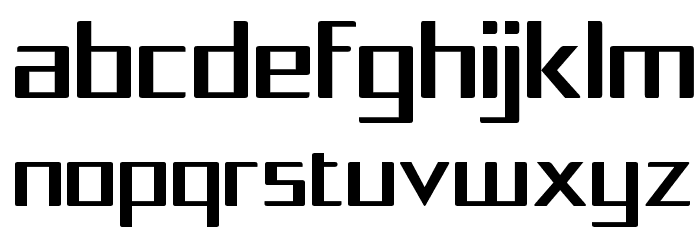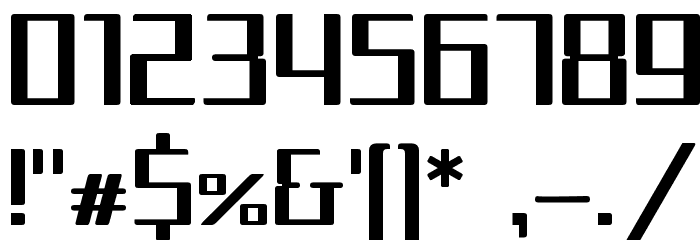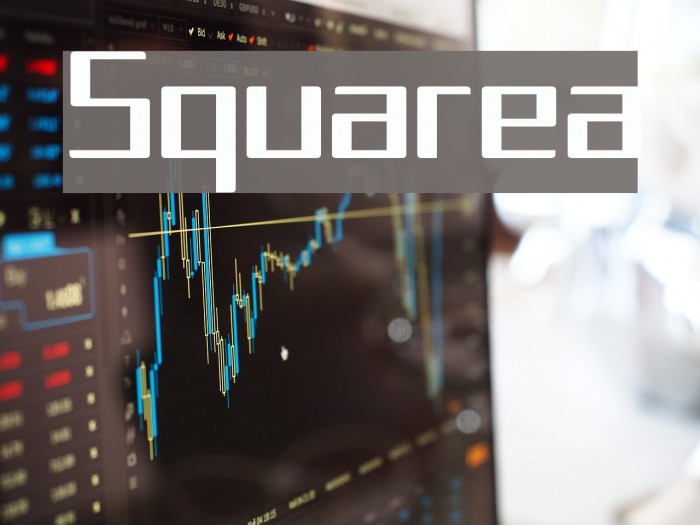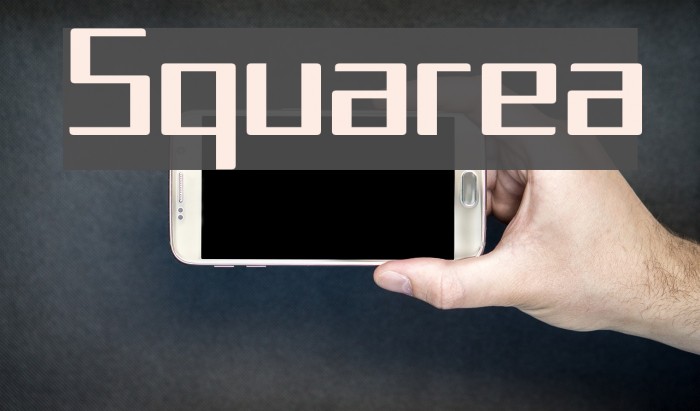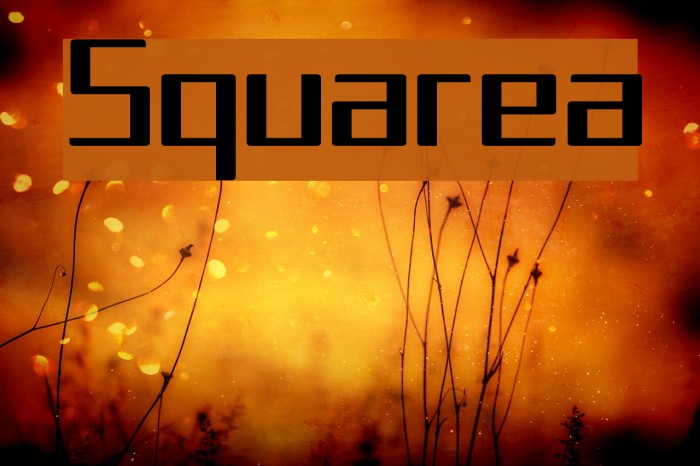
Squarea Font
This font features a geometric and modern design with a strong emphasis on straight lines and right angles. The characters are constructed with a consistent stroke width, giving it a monospaced appearance despite not being strictly monospaced. The uppercase and lowercase letters maintain a uniform height, contributing to a clean and orderly aesthetic. The numerals and special characters follow the same design principles, ensuring a cohesive look across all glyphs. This font's structure is reminiscent of digital or pixelated typefaces, making it suitable for tech-related themes.
A geometric, modern font with consistent stroke width and a digital aesthetic.
- Proposed Projects: Ideal for tech branding, digital interfaces, video game design, and futuristic posters.
- Use Case: Logos, Headlines, Digital interfaces